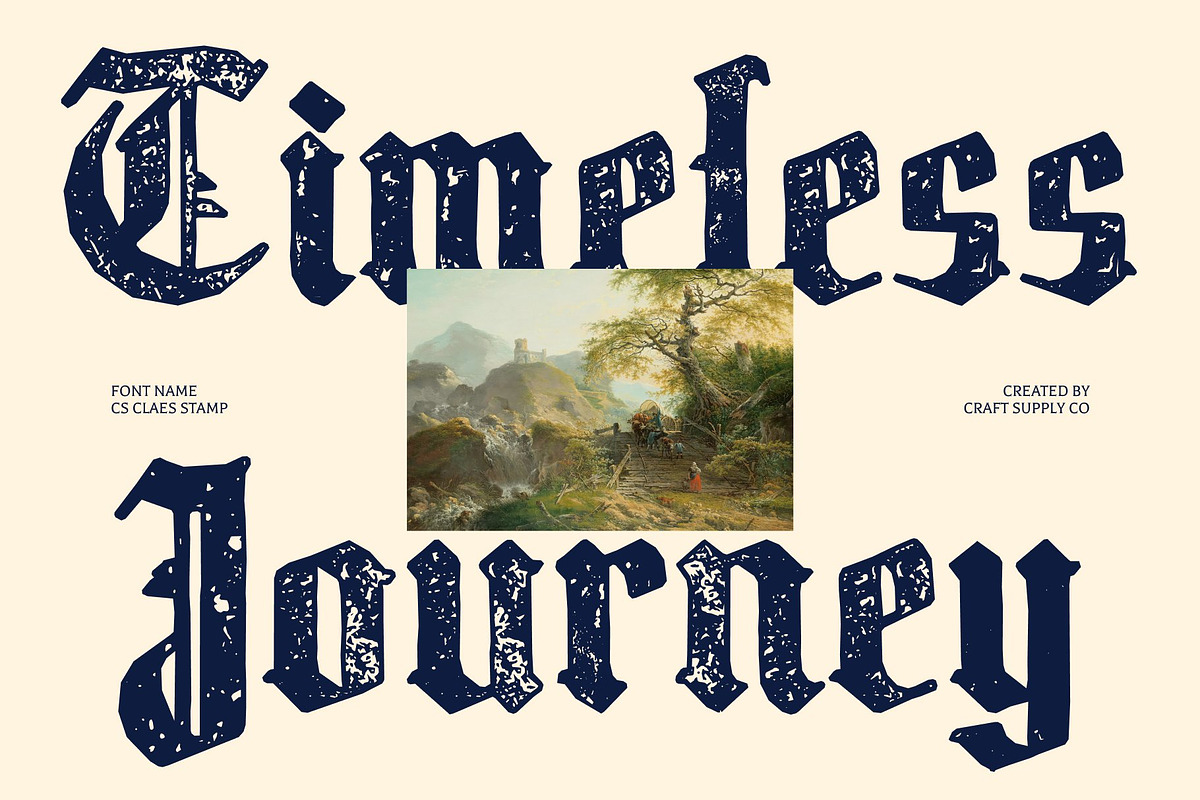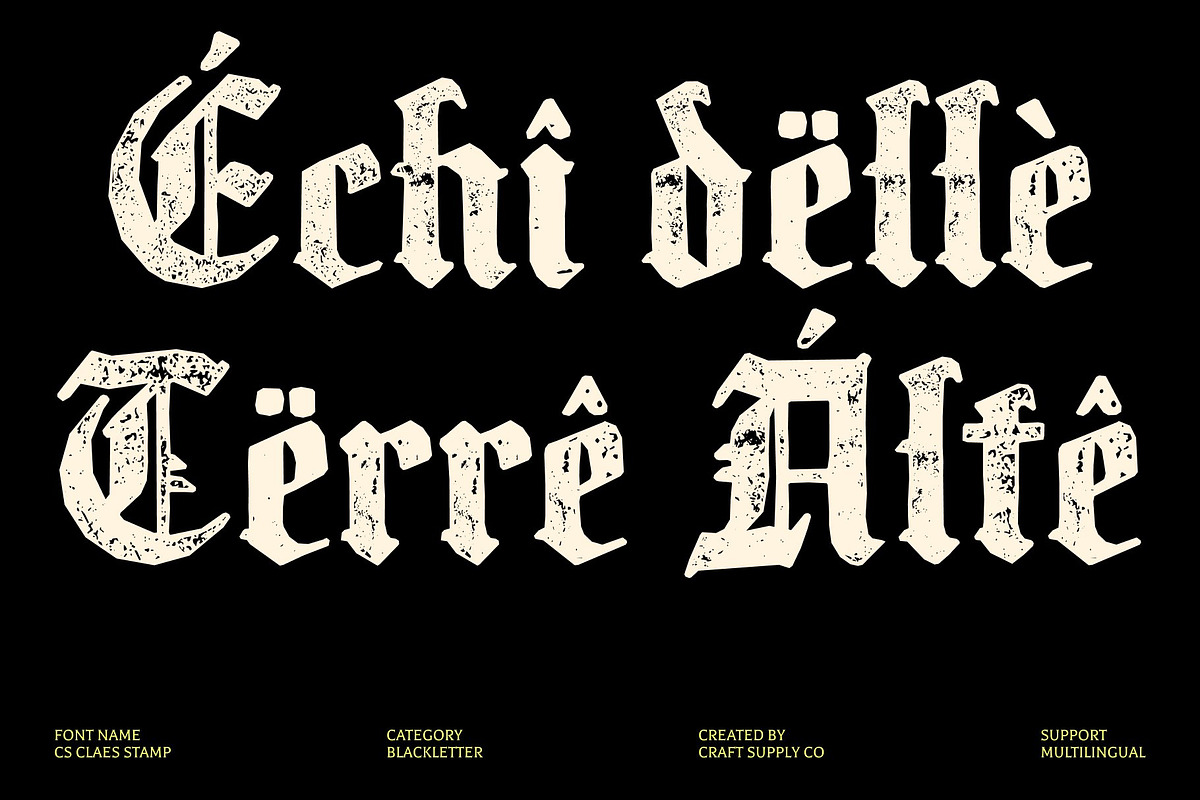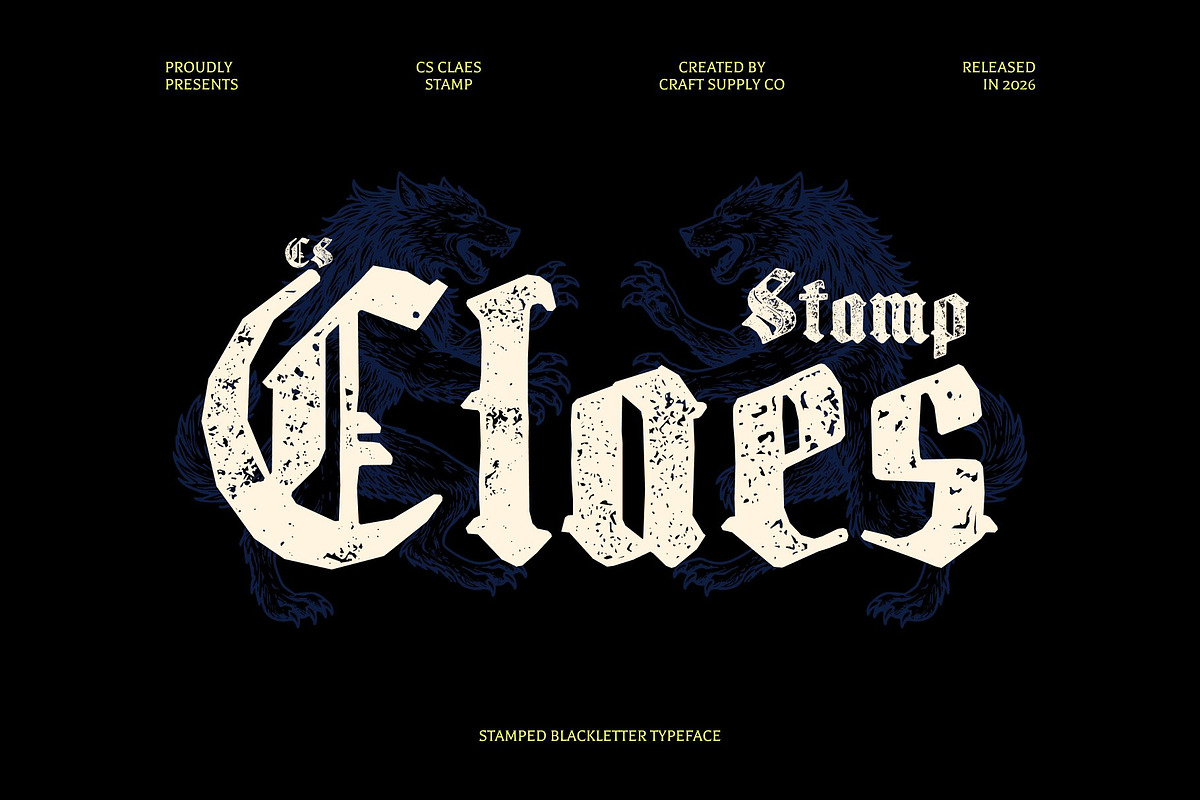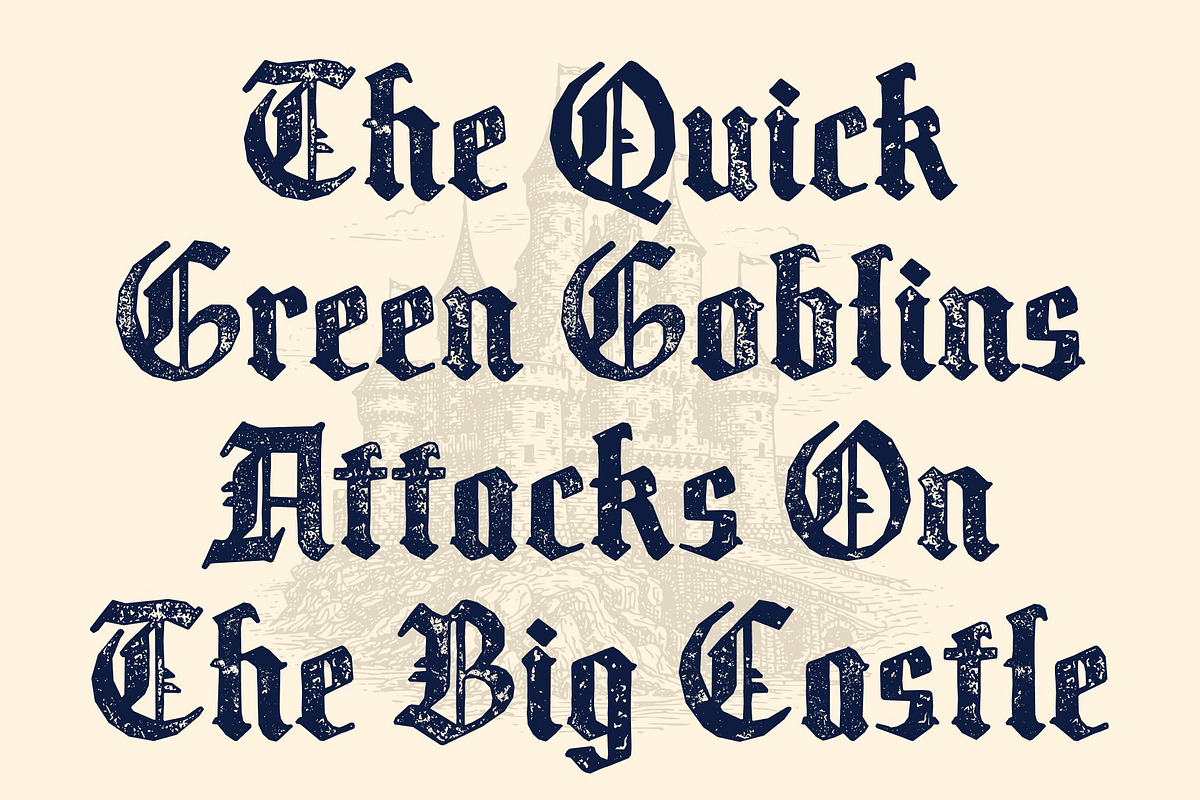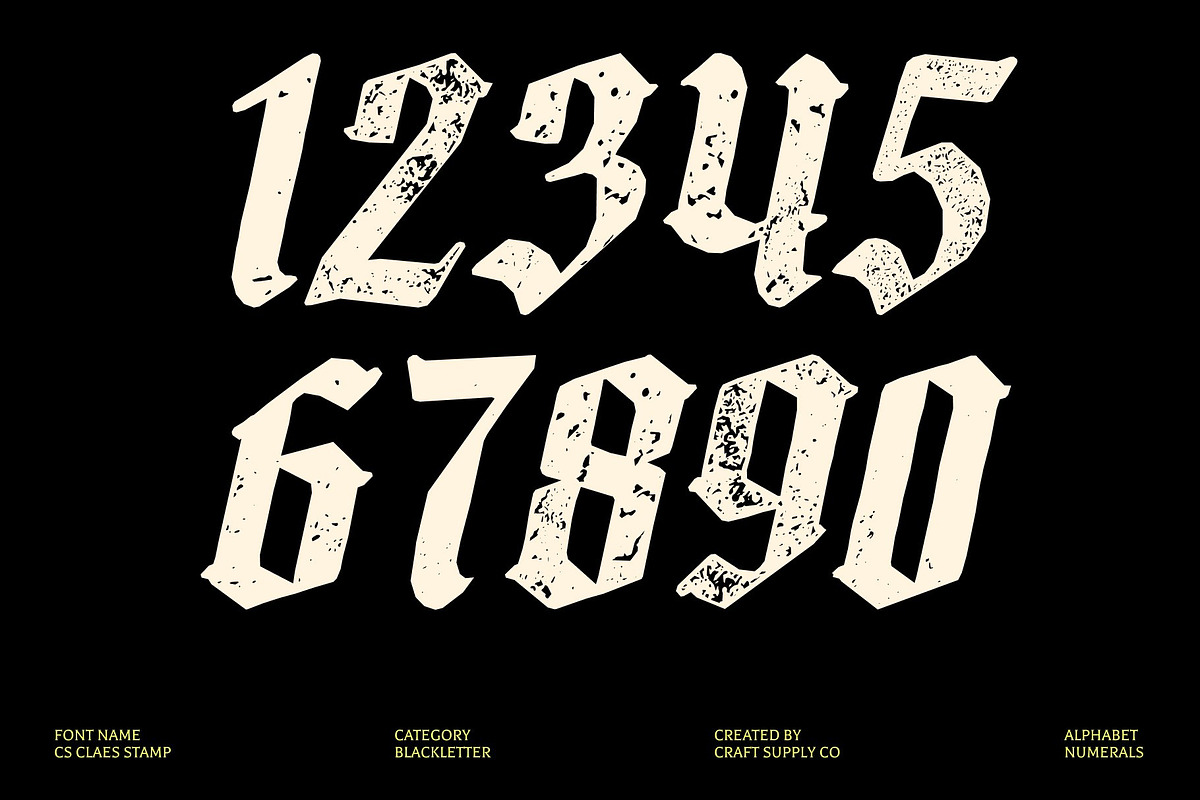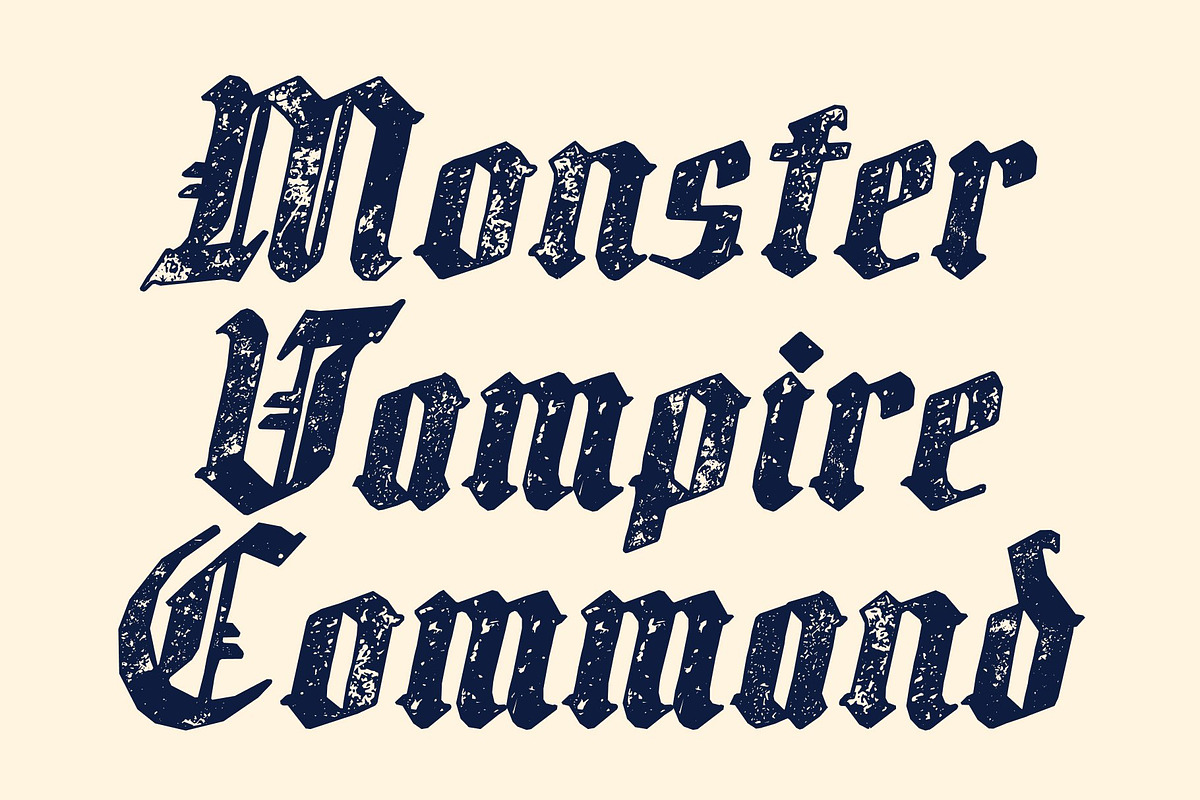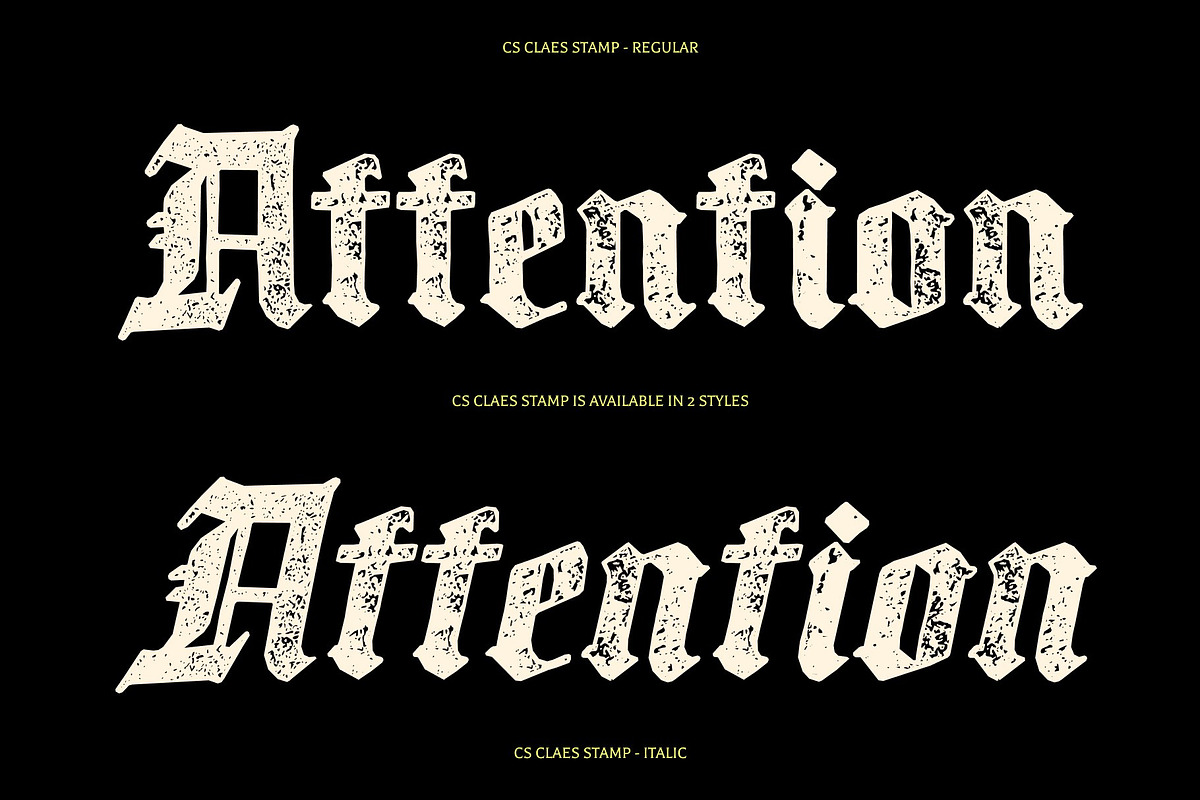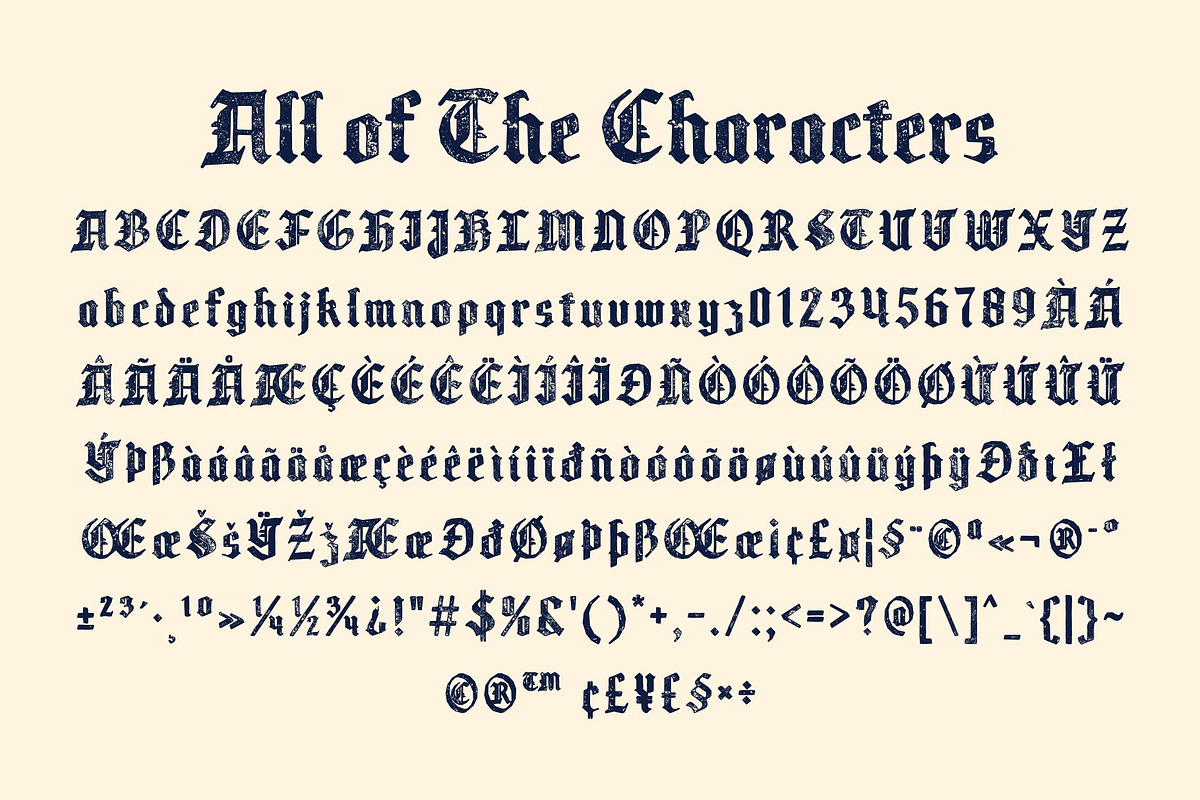
CS Claes Stamp
CS Claes Stamp – Medieval Authority with Vintage Texture
Old English Textura with Historic Elegance This is a striking display font inspired by the intricate beauty of Old English Textura script found in medieval manuscripts. Its sharp, upright letterforms, pointed angles, and ornamental curves capture the essence of historical calligraphy, delivering a bold and authentic Gothic presence. Enhanced with a stamp effect, the font gains a textured, aged appearance that evokes the feel of antique ink and traditional printing.
Ornate Letterforms with Distressed Character The rich decorative details of this font are complemented by subtle distressed textures that introduce depth and realism. The stamp effect adds worn edges and ink variations, enhancing the handcrafted and timeworn aesthetic while preserving the clarity and structure of the letterforms.
Dramatic Presence with Timeless Appeal This font conveys authority, tradition, and sophistication through its dramatic style. Its strong vertical rhythm and intricate detailing create a powerful visual impact, making it ideal for designs that seek to express heritage and cultural depth with elegance.
Perfect for Heritage Branding and Decorative Design Ideal for book covers, vintage logos, formal invitations, certificates, event materials, and historical-themed projects, this font brings a sense of medieval elegance to modern design. Its fusion of Old English artistry and vintage stamp texture creates a distinctive typographic voice that feels bold, classic, and richly atmospheric.